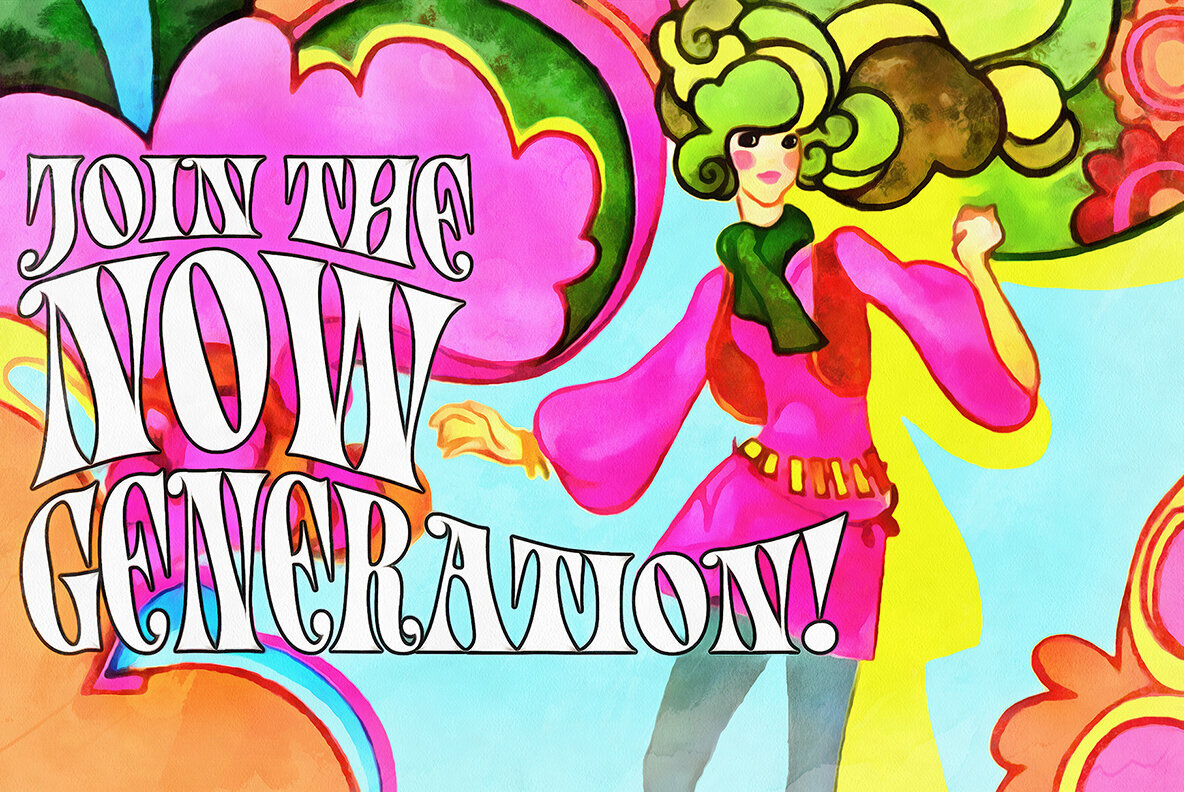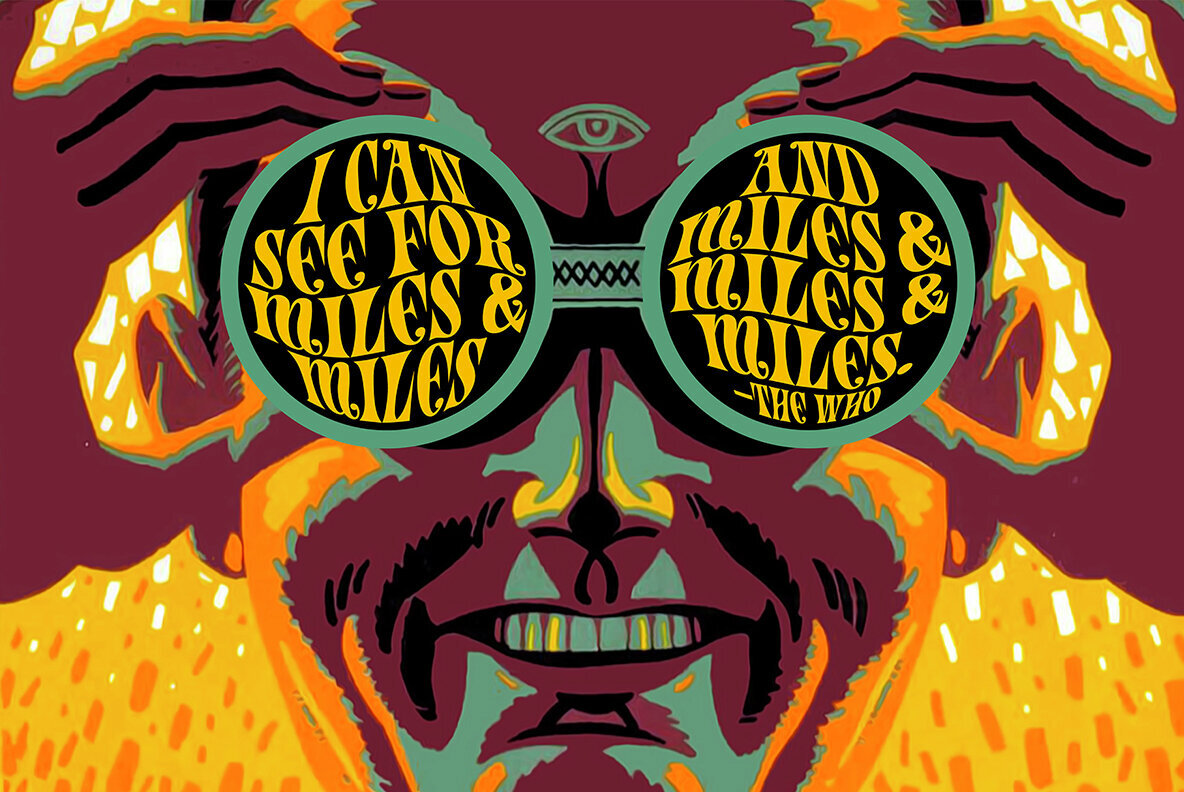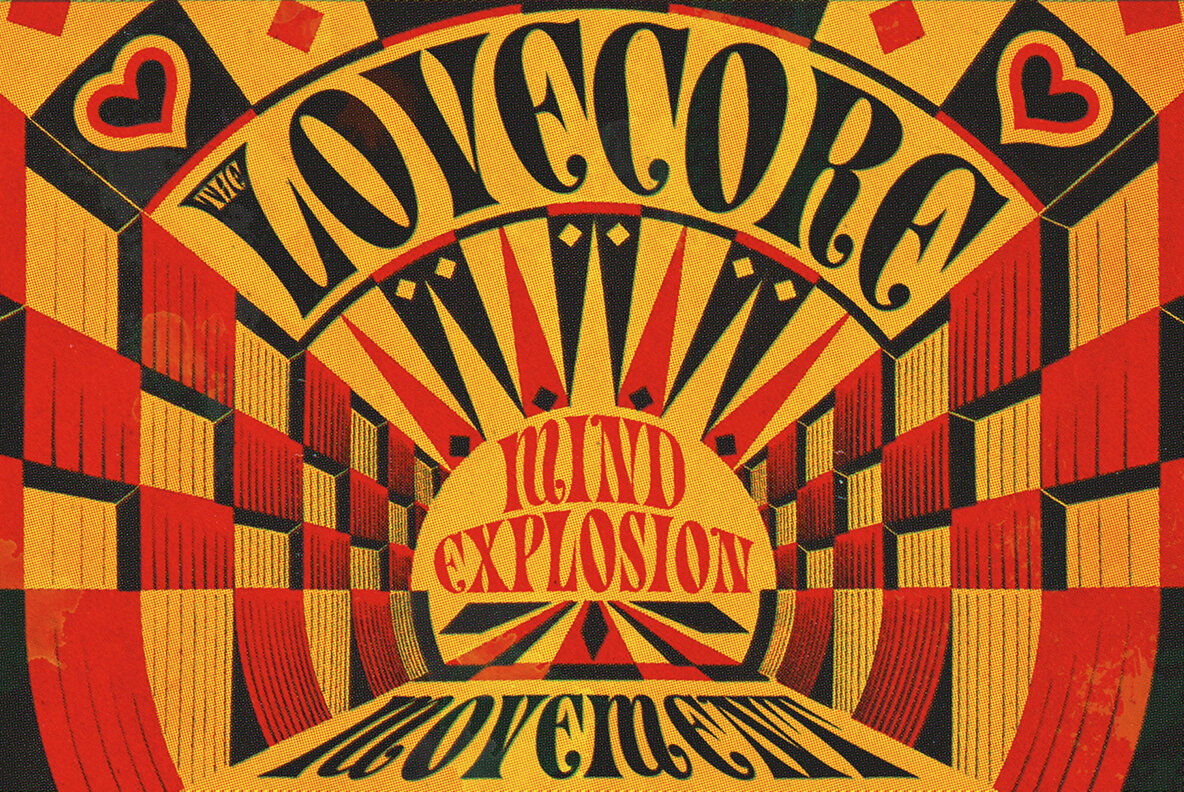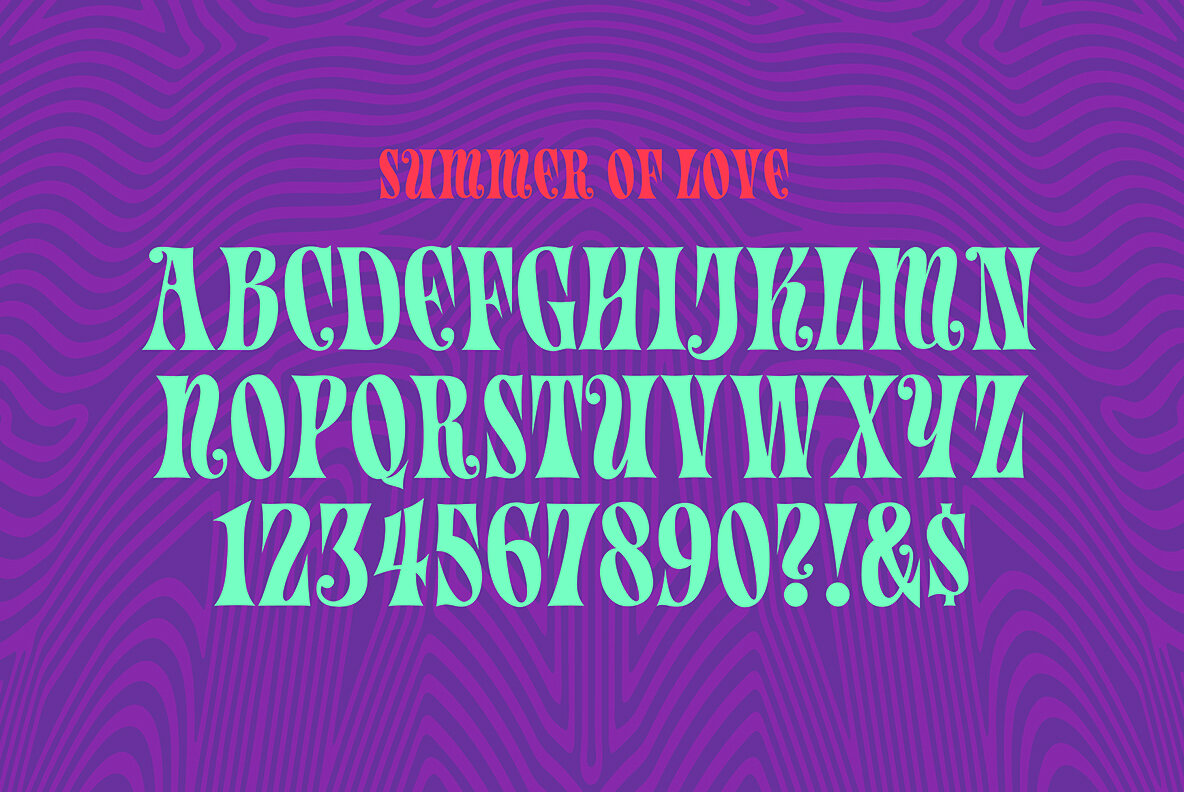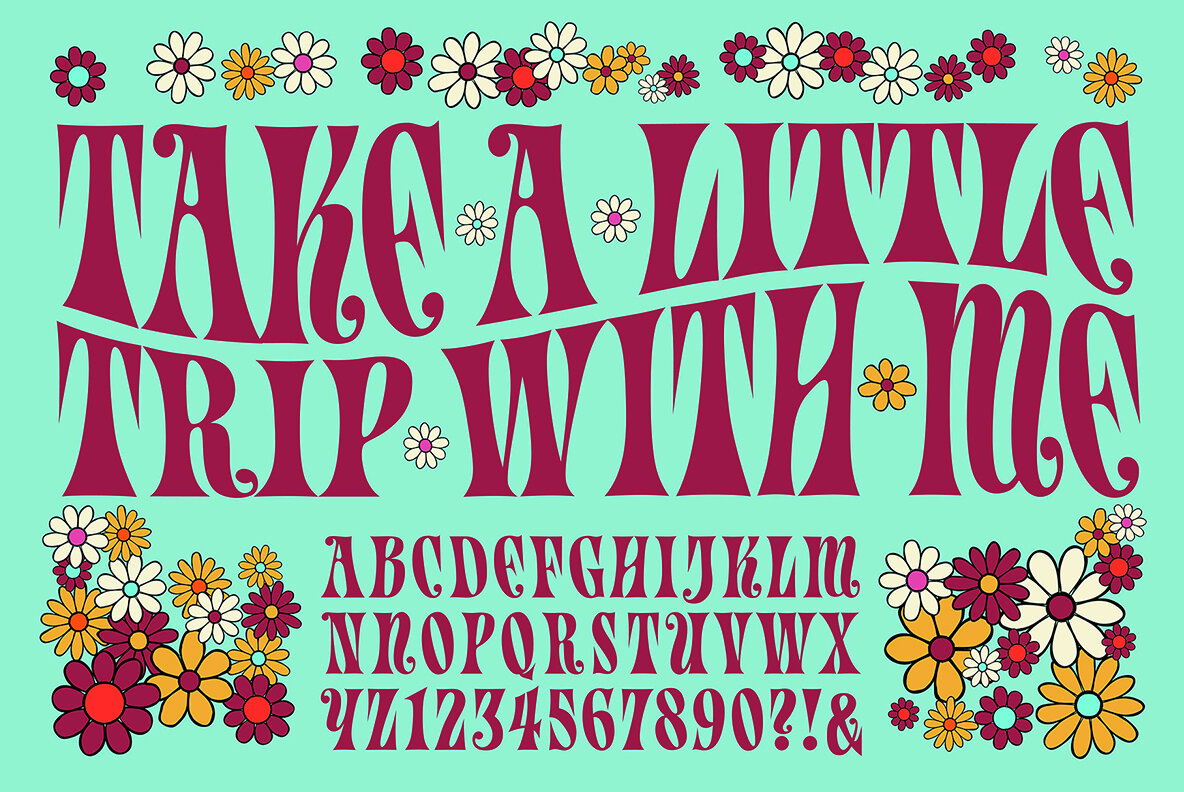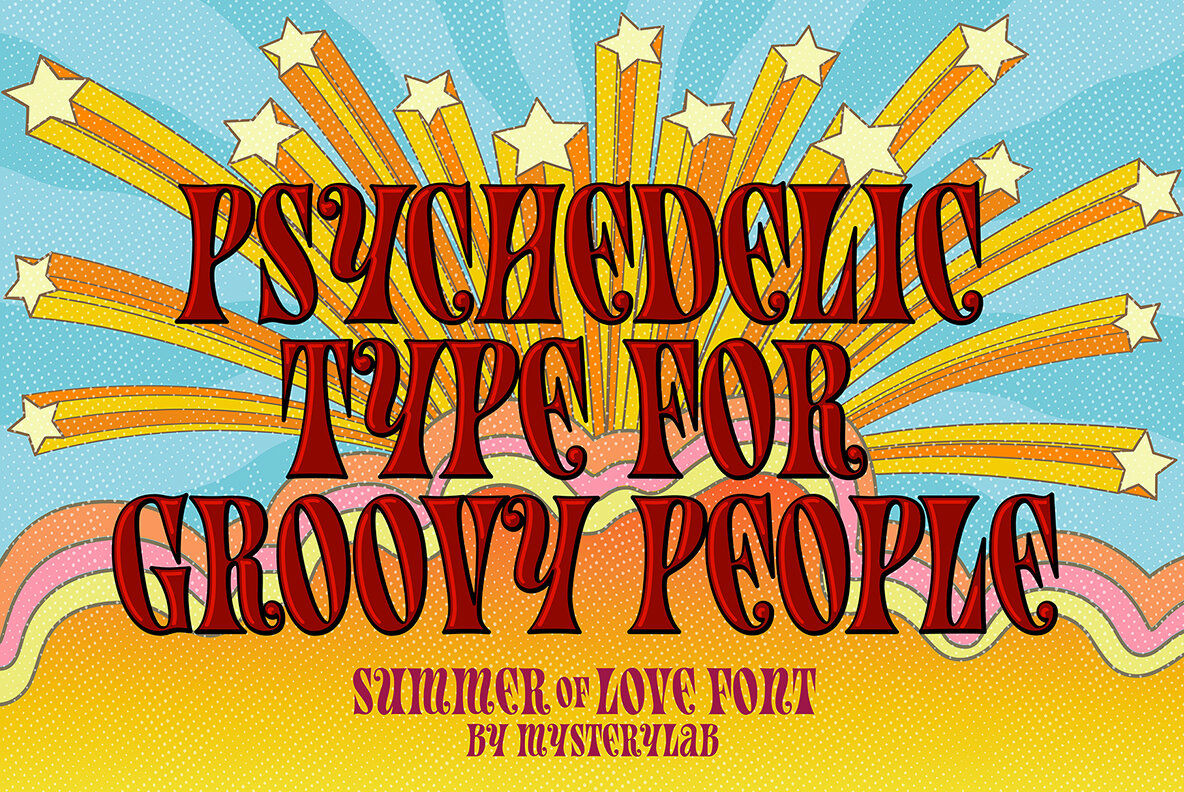
It's the sixties all over again with Summer of Love. Add just the right dose of groovy charm to your retro design with this vintage-styled font. This is a uni-case design with hybridized upper and lower case characters, featuring a robust set of multilingual glyphs, so you can say "Groovy baby" in many languages. Evoke the carefree and whimsical vibe of the psychedelic era with Summer of Love; it's pure funky fun!